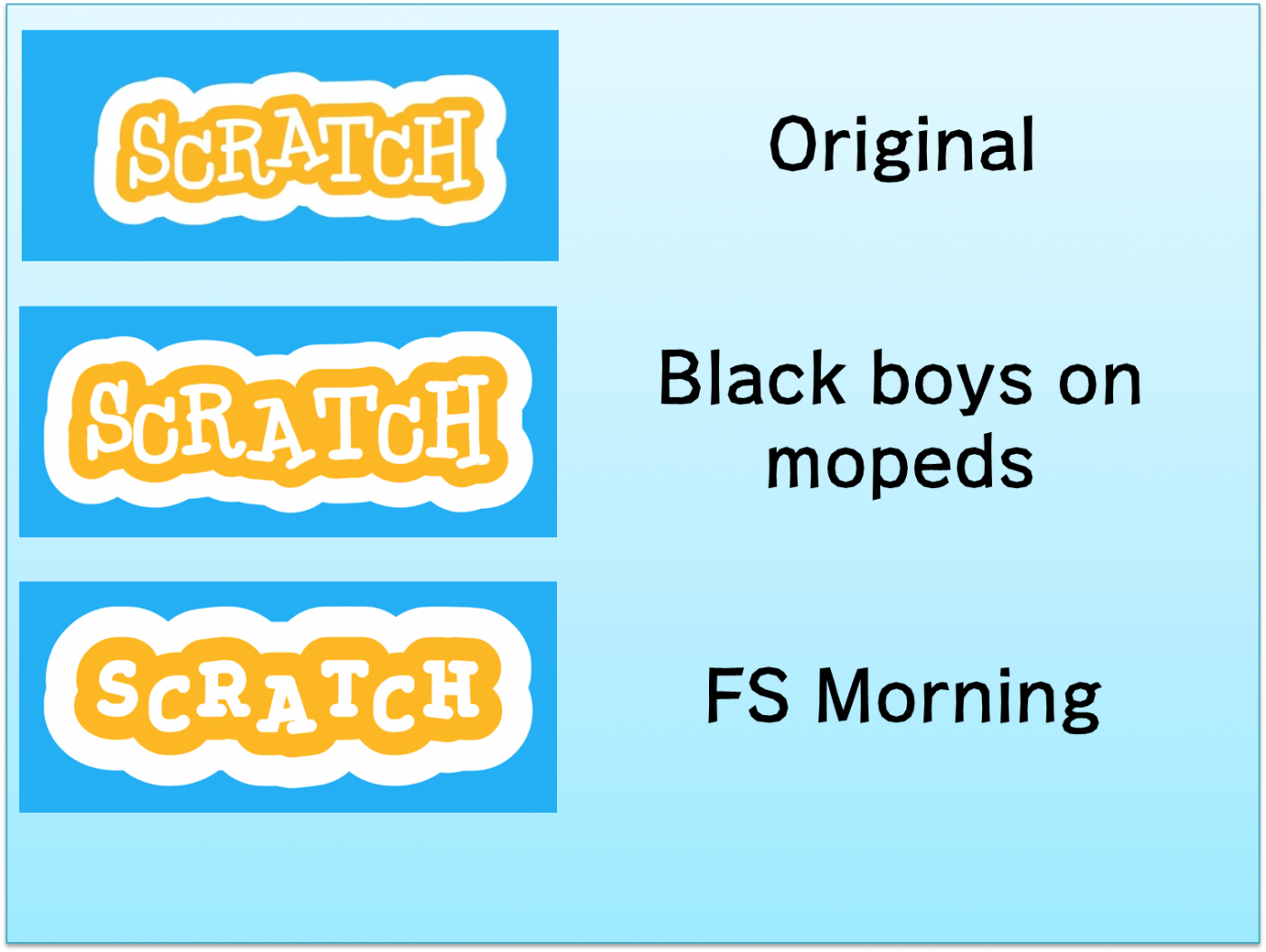
• Inspired by a font I saw in a children's book. The artist had drawn a map of the world on canvas and used a tiny serif font to label important points on the map. The letters had such a cute hand-made feel to them that I just had to recreate it in FS.
Uppercase letters are 6 grid squares (3 bricks) tall; lowercase are 4.5 (2.25 bricks). IIRC nudging had recently been introduced; this definitely would have been impossible without it.
How is that possible? It looks so irregular I wouldn't believe it was made on Fontstruct :O Are you planning to add more chcaracters? Because this font is awesome. 10/10
Congratulations on the TP :) I love the hand-drawn look, it must have been quite a challenge to get such a natural irregularity into such a small grid. *Bravo* and 10/10
:-) Thanks, guys. I've made the font cloneable so you can explore the complexity on your own. Most letters are actually built from the same basic arrangements; only some (Q, S, a, g, 2, and diagonals) required special attention.
I just cloned it. I'm totally impressed by the patience you needed to  make way over 100 special bricks ....... I wonder when I will make fonts that complicated. I'd love to  give you another 10/10
I hope you get started with accents...
Unbelievably organic.
This reminds me of the Scratch logo font
good font!
@user2048 also i sent image to see how the scratch logo looks like with fs morning